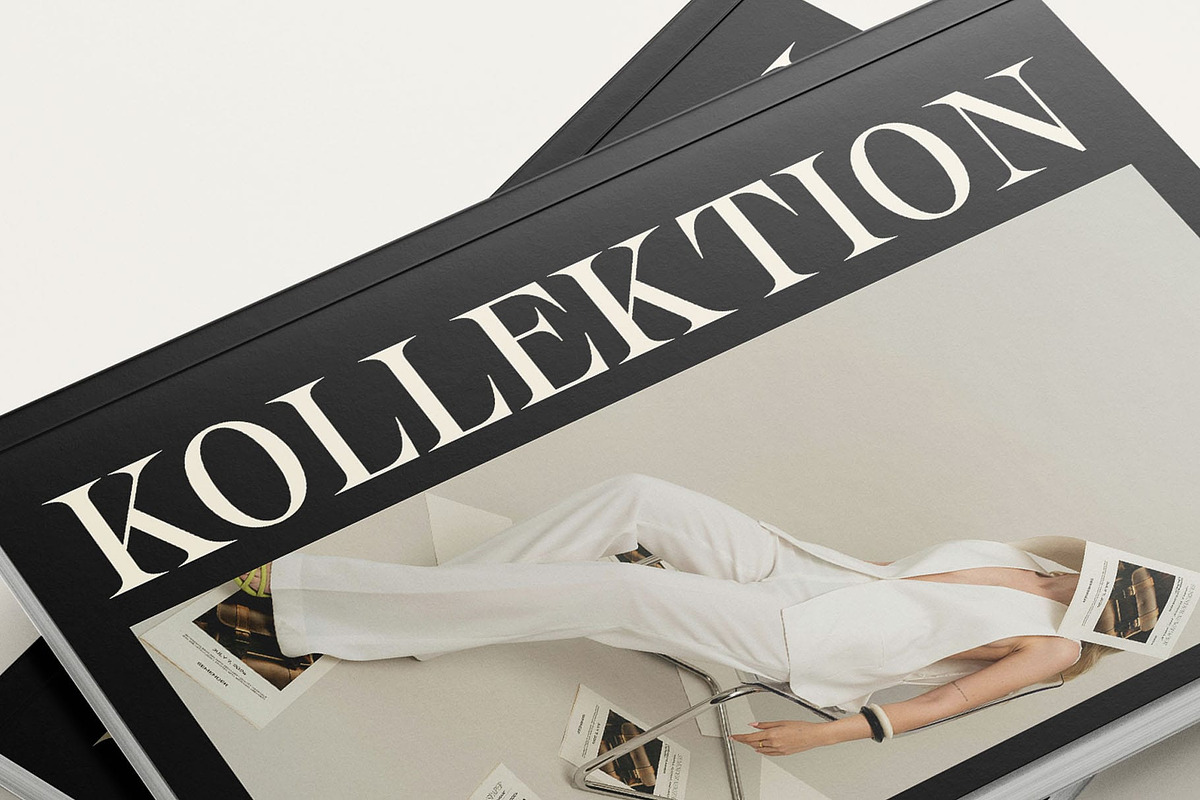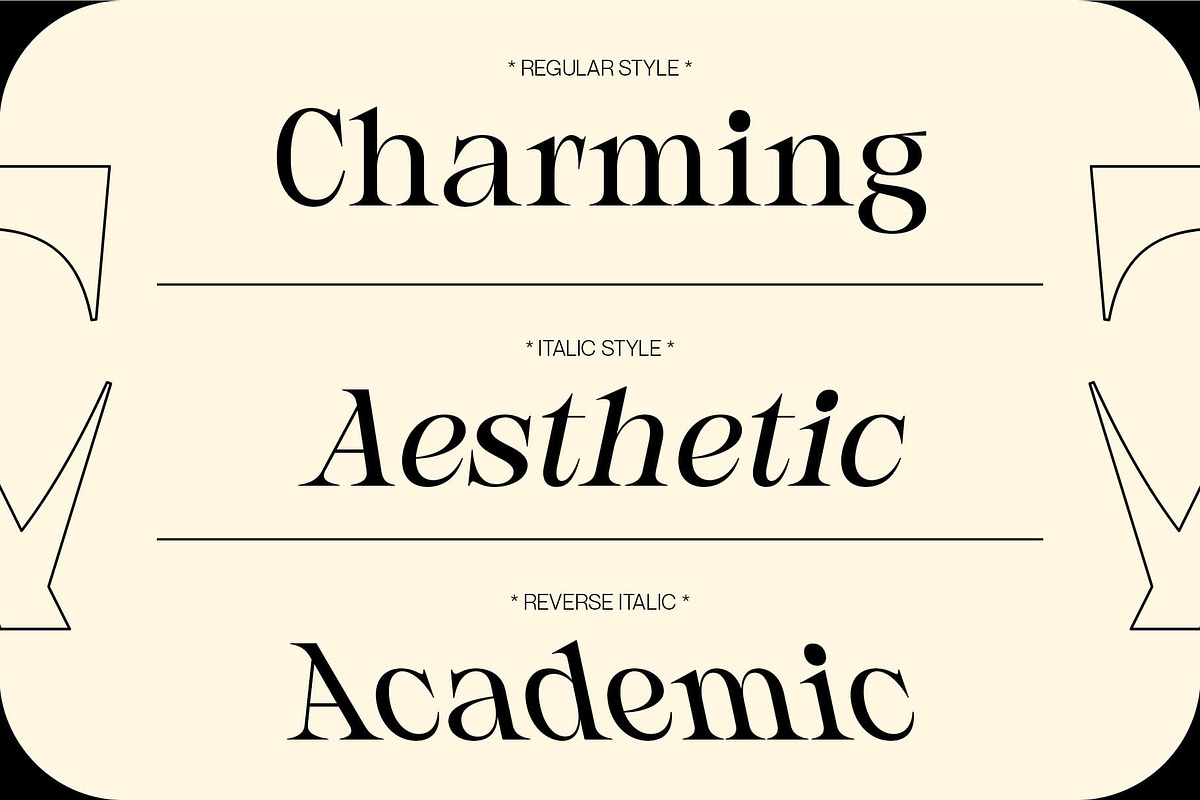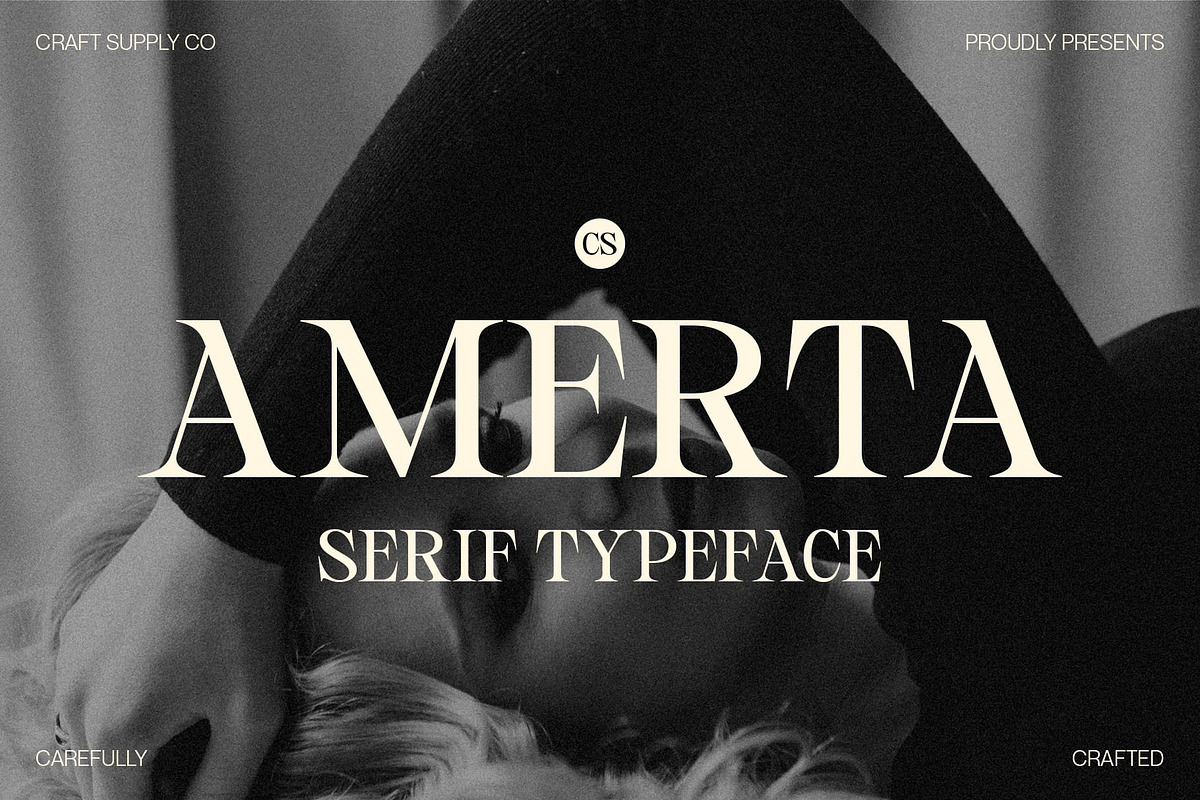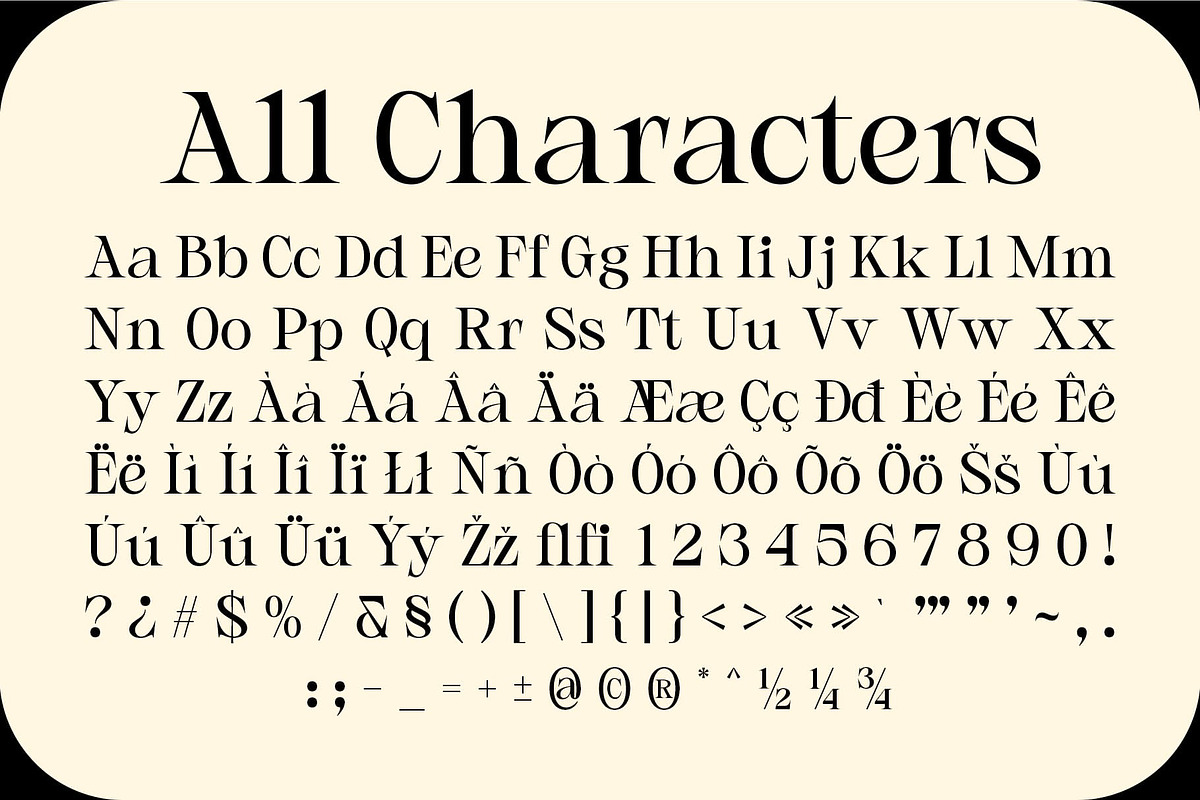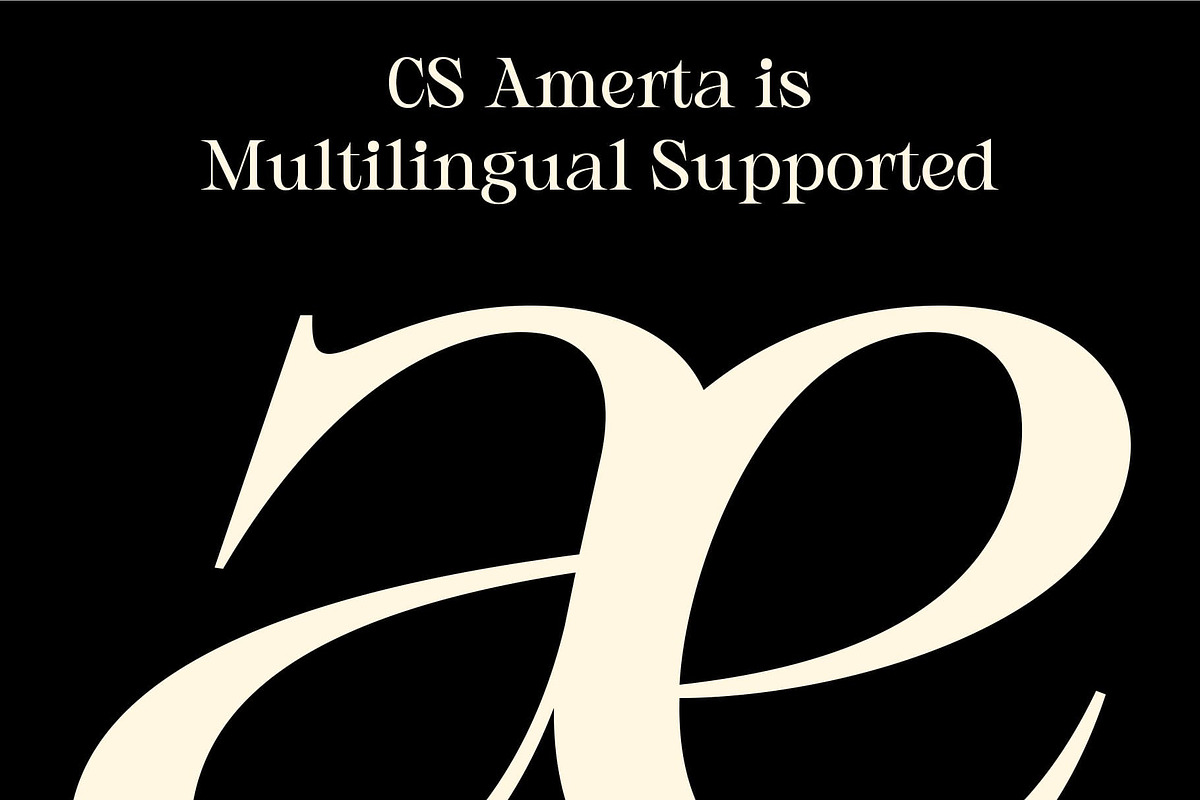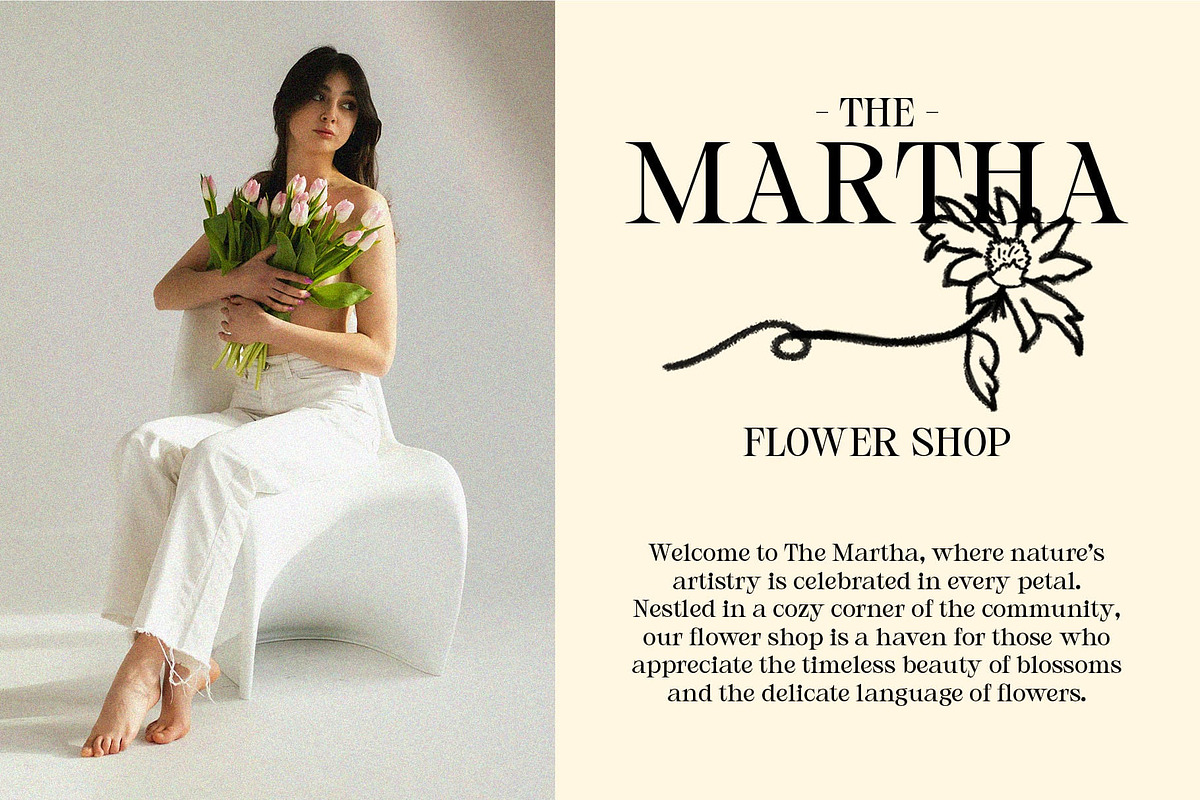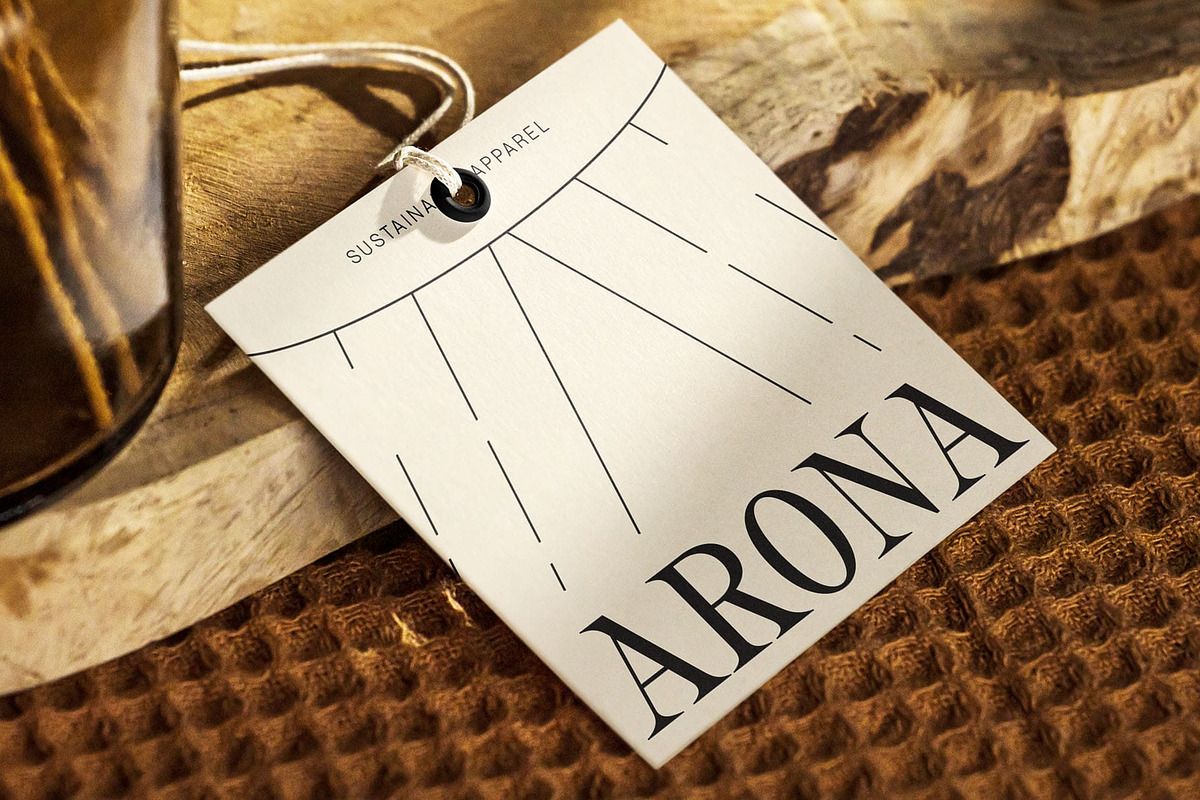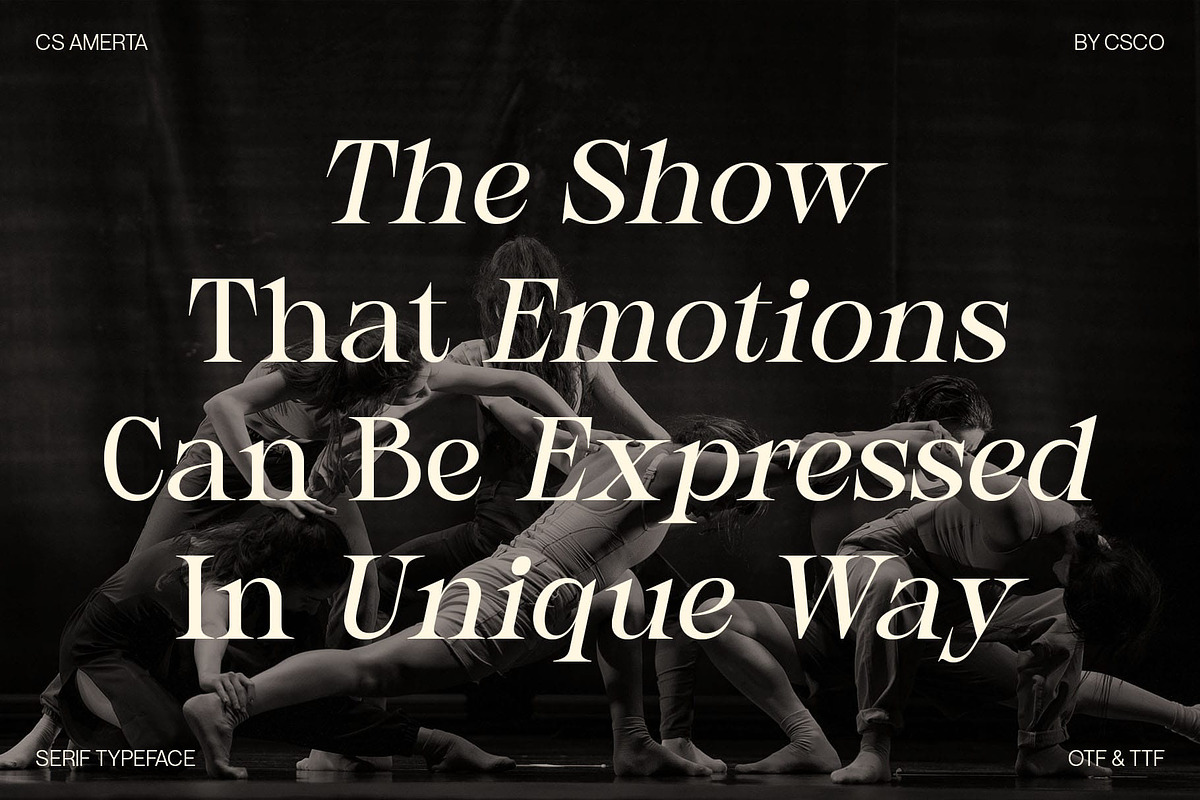
CS Amerta – Elegant Font
CS Amerta – Elegant Font: Modern Serif with Contemporary Elegance
Sleek, Well-Proportioned Letterforms CS Amerta is a modern serif font that blends classic elegance with contemporary design. Its sleek, refined letterforms and well-balanced proportions create a sophisticated and luxurious impression, making it ideal for high-end branding, editorial designs, and projects that require a sense of professionalism.
Perfect for Branding and Editorial Design With its timeless appeal, CS Amerta excels in branding, editorial layouts, and visual identities. The font’s stylish and polished design elevates any creative project, adding an air of elegance that enhances brand credibility while maintaining a strong, polished presence.
Exuding Luxury and Refinement The elegance of CS Amerta is unmistakable. Its graceful curves and sharp details offer an exquisite balance between modern aesthetics and classic formality. Whether used in print or digital, the font exudes a sense of luxury and refinement, making it perfect for projects that aim to convey both prestige and sophistication.
Versatile for Diverse Applications CS Amerta is versatile, offering a sophisticated yet adaptable design for various applications. Whether for high-end product packaging, corporate branding, editorial spreads, or luxury advertising, the font’s professional aesthetic ensures it stands out with understated elegance and credibility.
- CS Amerta Regular
- CS Amerta Italic
- CS Amerta Reverse Italic